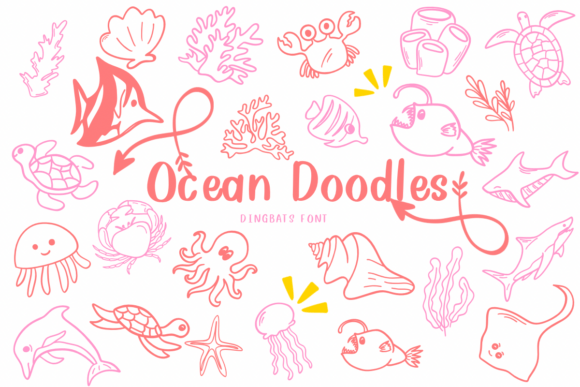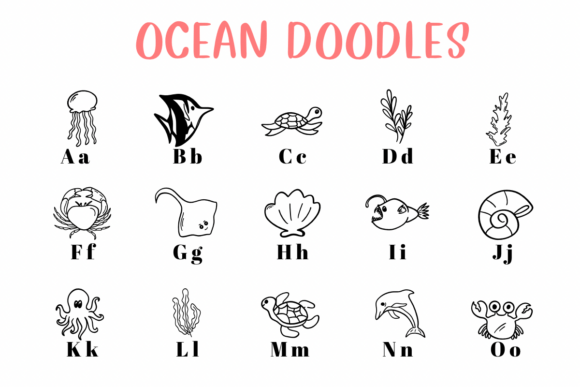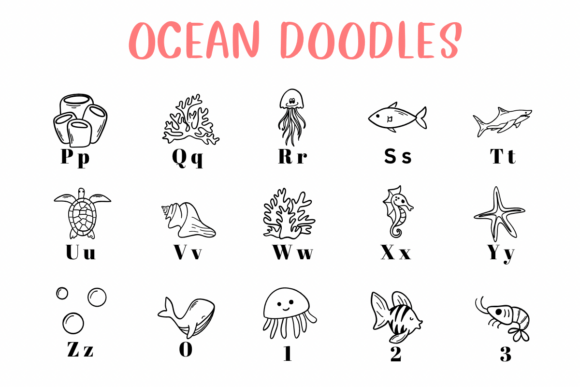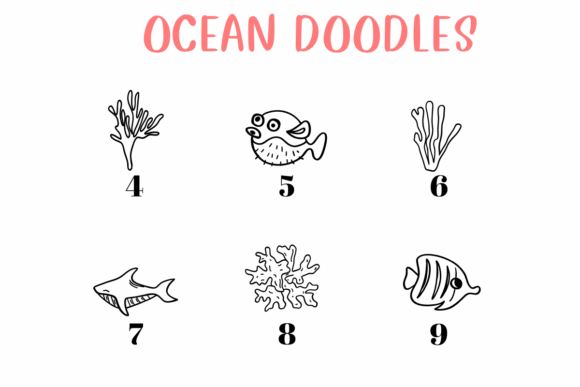
Ocean Doodles Font: A Cute Sketch Font for Cricut & Craft Projects
About the Ocean Doodles Font
From logos to headlines, the Ocean Doodles Font is the perfect choice for making a lasting impression. Ocean Doodles is a dingbats font with an aquatic theme. This font can enhance your creative projects such as wedding invitations, DIY, crafts, decorations, logos, and many other creative ideas.
Ocean Doodles thrives in projects requiring a playful, whimsical touch. Ideal applications include children’s books, branding for aquatic-themed businesses, invitations for beach weddings, or decorative elements in packaging. It excels in short text segments, headings, and logos where its unique character shines. Avoid using it for body text or UI elements where readability is paramount.
The font’s lighthearted nature pairs well with clean sans-serif fonts like Open Sans for body text, offering a balance of playful and legible elements. For a more sophisticated feel, consider pairing it with a delicate script font like Great Vibes for a charming contrast. Alternatively, a geometric sans-serif such as Montserrat adds a modern edge to its organic forms.
Ocean Doodles’ overall personality is cheerful and informal. Its hand-drawn feel makes it perfect for projects aimed at a younger demographic or brands seeking to convey a light, friendly, and approachable image.